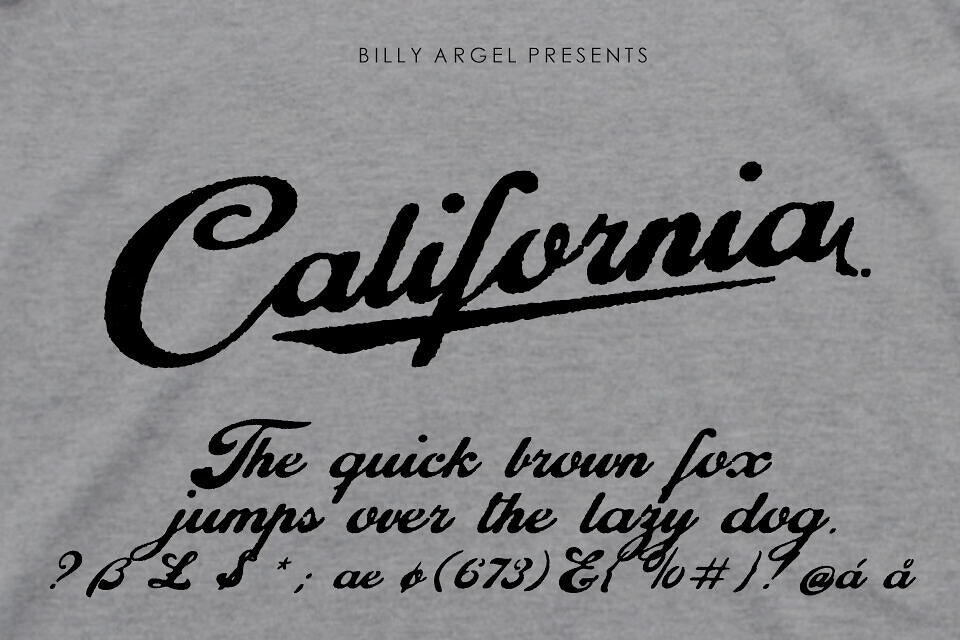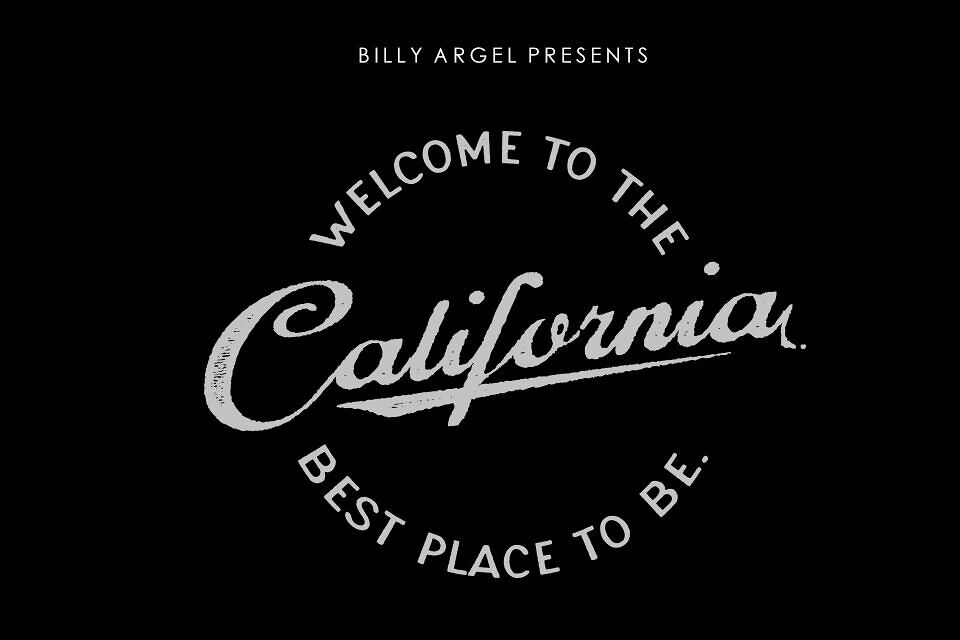
California Font
California Font by Billy Argel is a dynamic script typeface that captures a vintage, hand-lettered aesthetic. Characterized by its bold, textured strokes and elegant swashes, this font exudes a classic “surf-and-sun” coastal vibe.
Its rugged, slightly distressed edges provide an authentic, rustic feel perfect for retro branding, apparel design, and logos. Featuring a rhythmic flow and distinct personality, California font includes versatile alternates and ligatures, making it an ideal choice for creators seeking a timeless, handcrafted look for impactful typography projects.